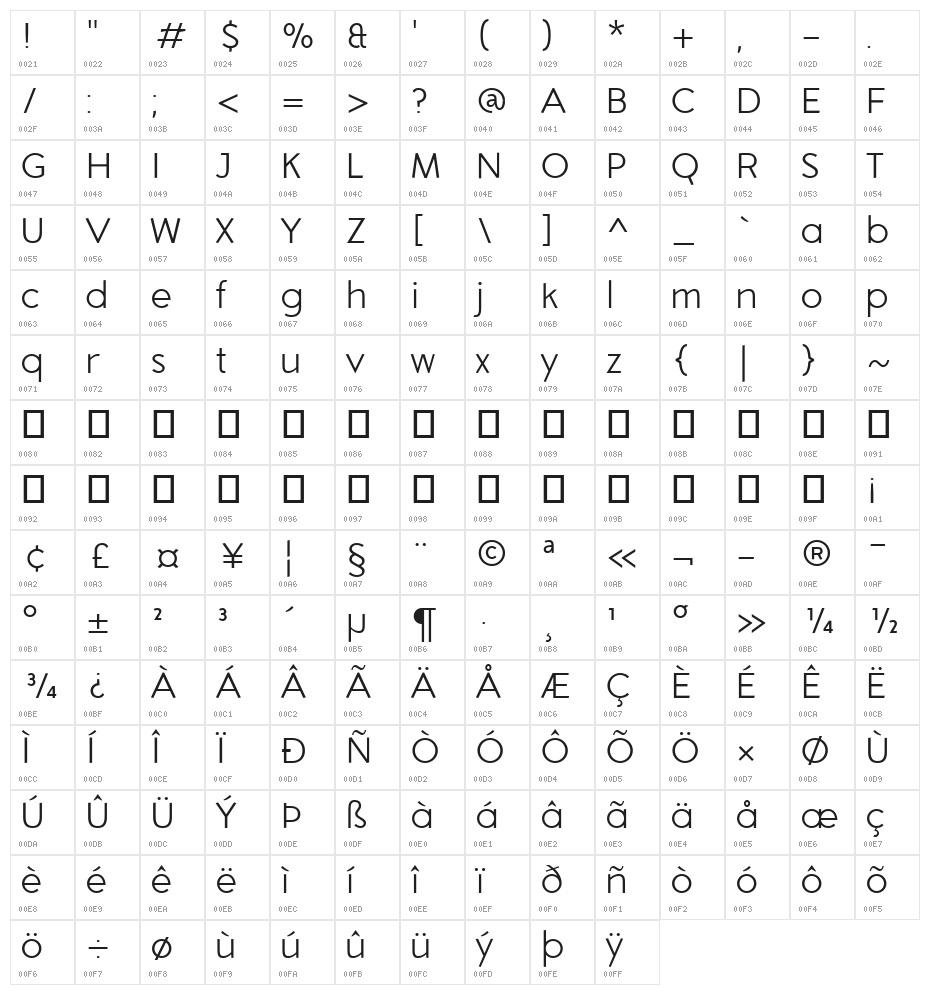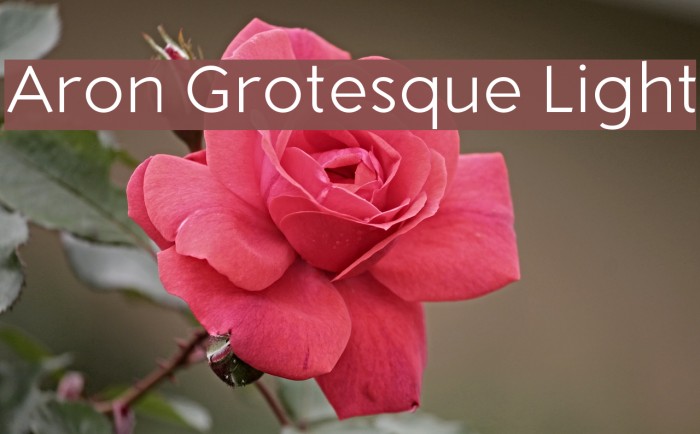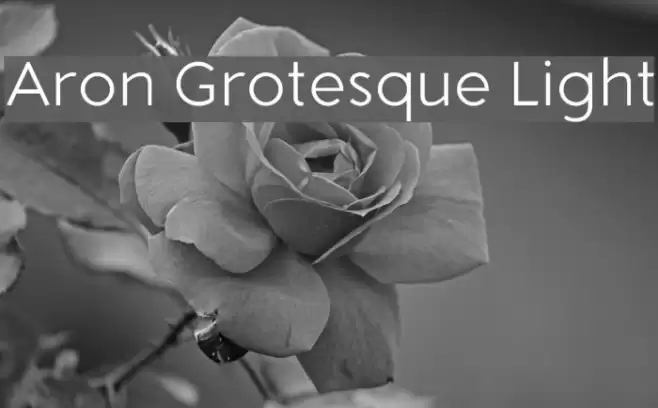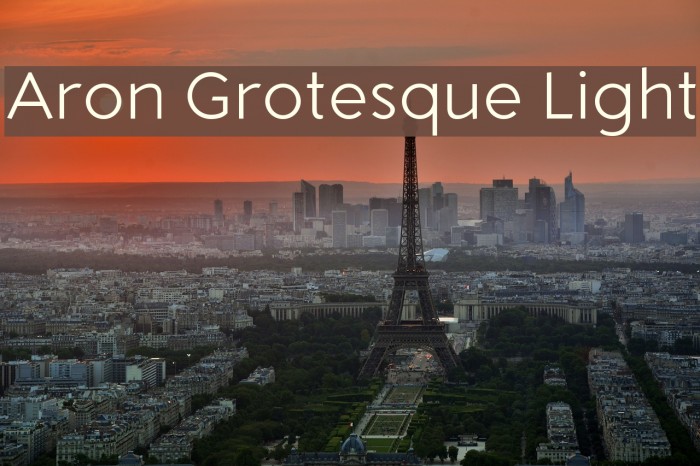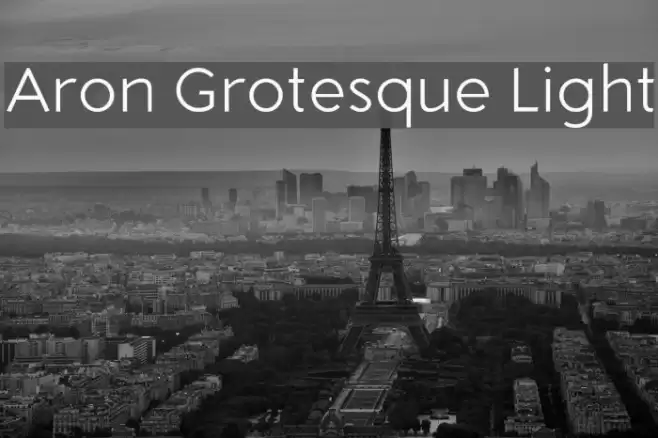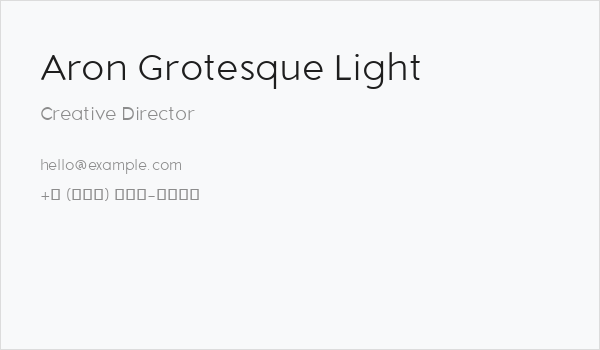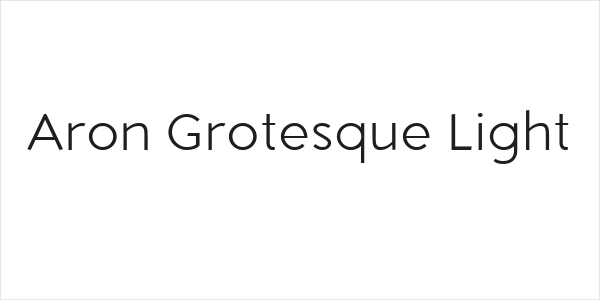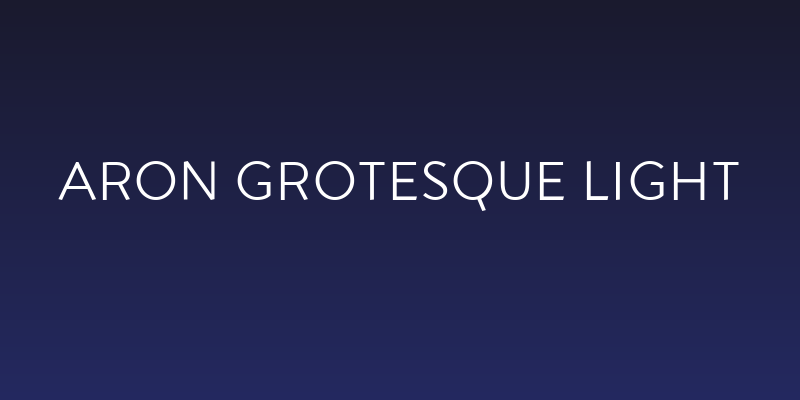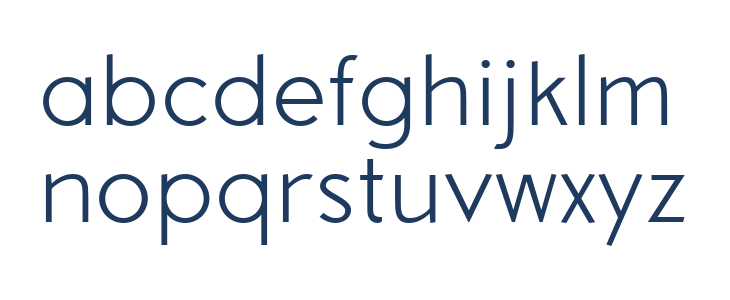
Aron Grotesque Light Font
Aron Grotesque Light Description
This typeface exhibits a clean and modern aesthetic with a minimalist approach. The characters are evenly spaced with a consistent stroke width, contributing to its legibility and clarity. The uppercase and lowercase letters maintain a harmonious balance, with rounded edges that soften the overall appearance. The numerals and special characters are designed to complement the alphabetic characters, ensuring uniformity across the typeface. Its simplicity and elegance make it versatile for various design applications.
| Proposed Projects | Ideal for branding, web design, corporate materials, and editorial layouts. |